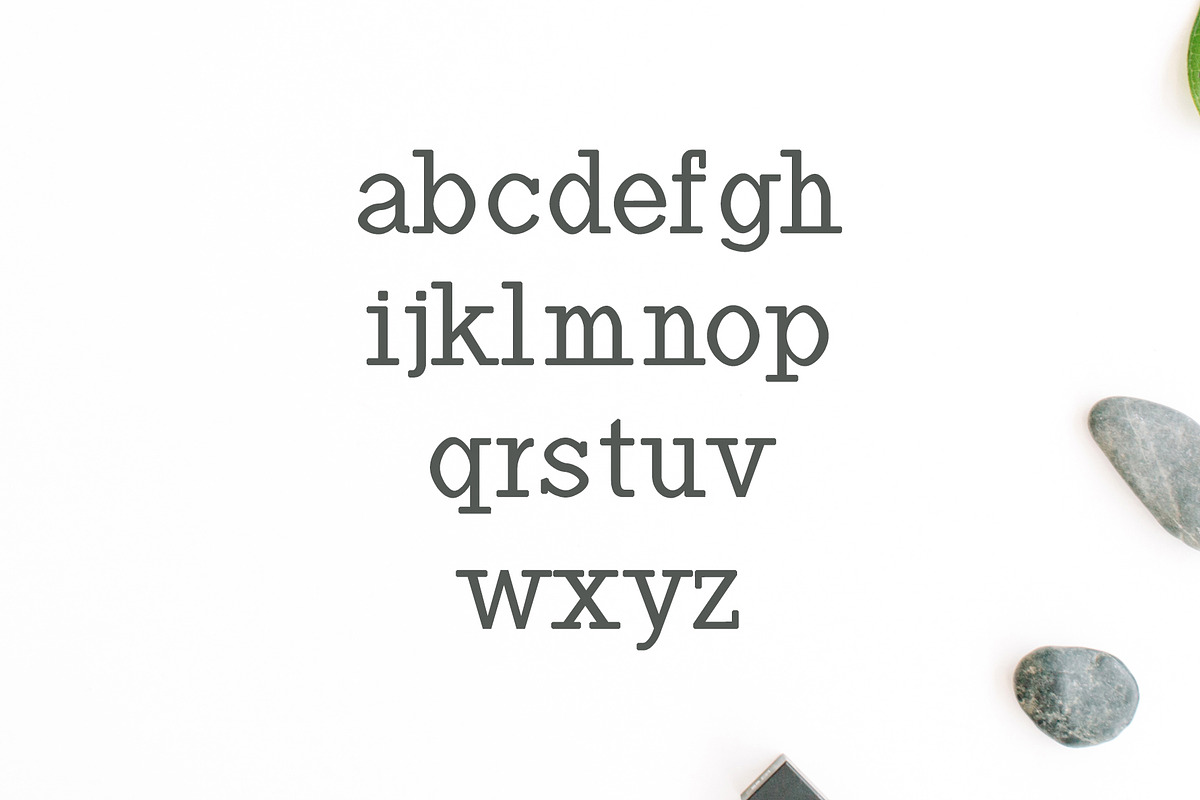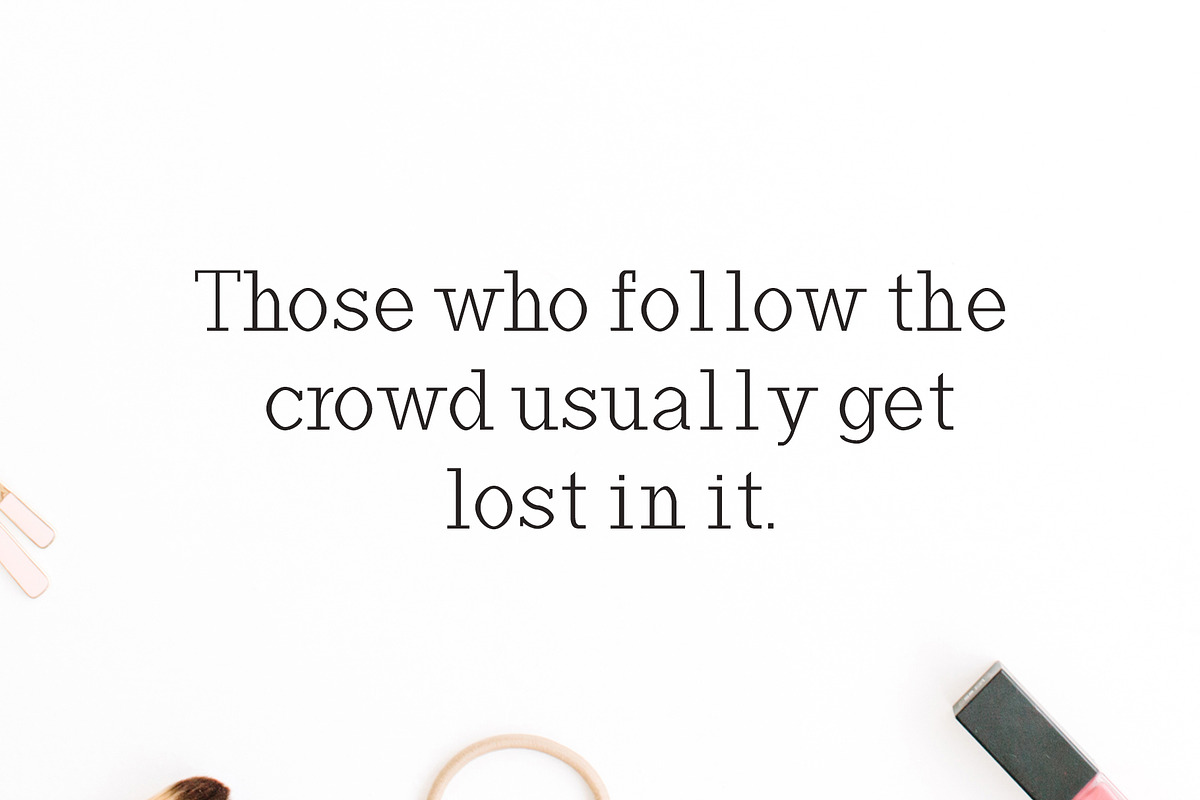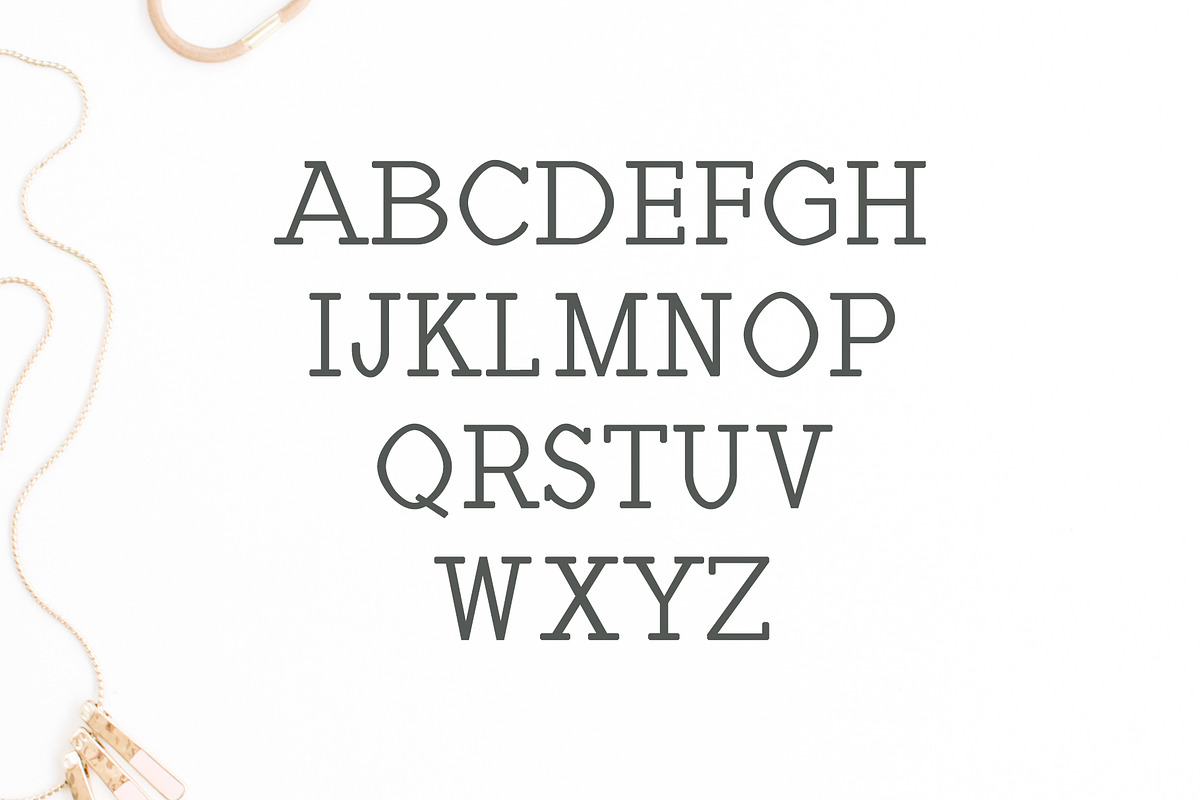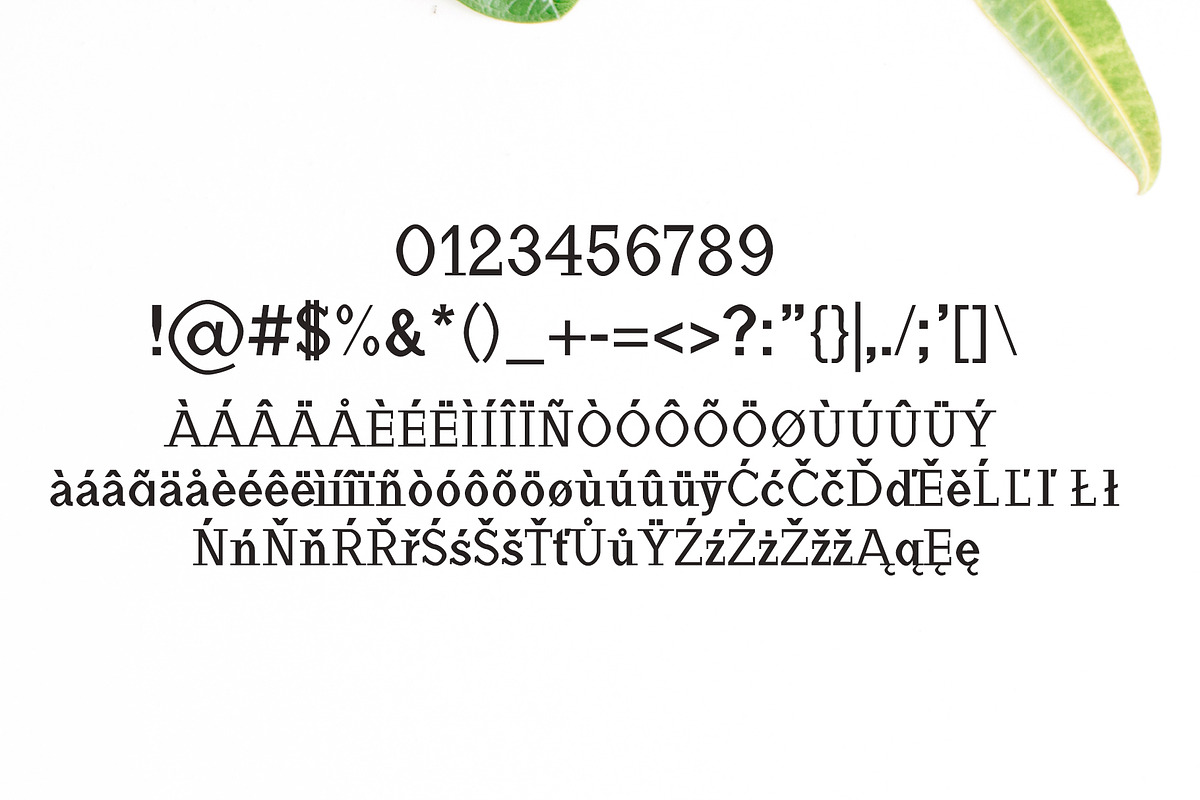
Haytham Slab Serif Fonts Packs
Haytham Slab Serif Fonts Packs by Creativetacos is a font selected for branding, posters, packaging, typography.
- Regular, Light, Bold, Black and Italics Weight
- Haytham Light
- Haytham Light Italic
- Haytham Regular
- Haytham Bold
- Haytham Bold Italic
- Haytham Black
- Haytham Black Italic
Why Haytham Slab Serif Fonts Packs is worth a look
Haytham Slab Serif Fonts Packs by Creativetacos fits naturally into Branding, posters, packaging, typography.